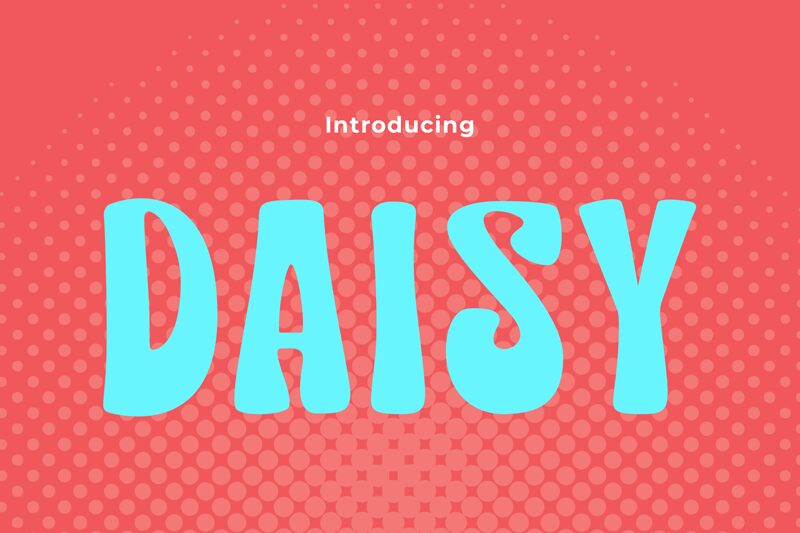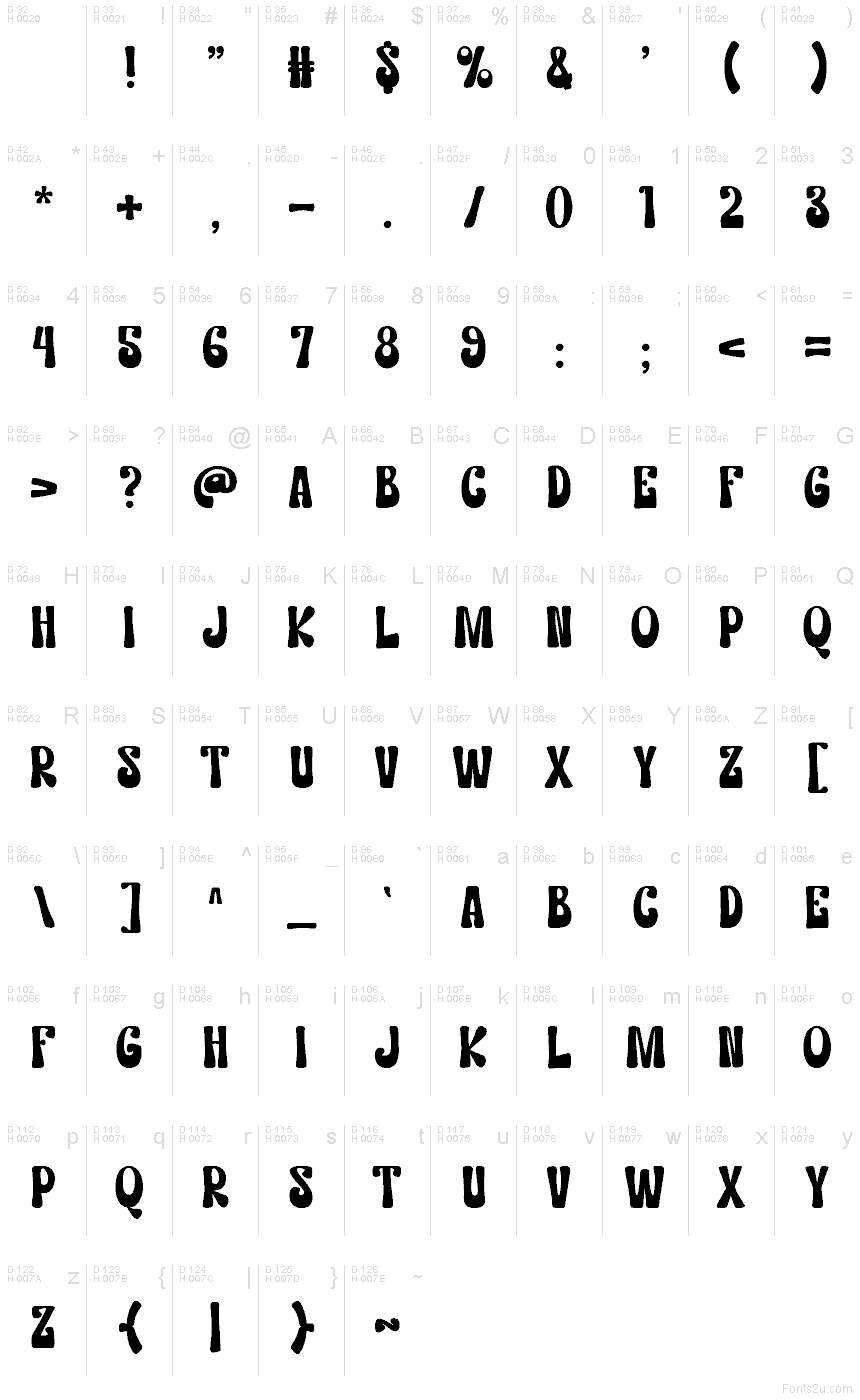
DAISY
Daisy font by Pinisiart is a free groovy display typeface that hits that sun‑soaked, late‑’60s vibe right on the nose. Thick, inky strokes swell and pinch with a wavy, hand-cut rhythm, giving words a pleasantly squishy bounce without losing legibility. It feels friendly and loud at the same time—like poster paint still drying.
Using Daisy, headlines jump off the page for festival posters, vintage‑inspired packaging, bold merch, sticker sheets, social graphics, and playful storefront signage. The generous weight and curvy silhouettes create an easy read at large sizes, while the soft corners keep it warm. For balance, pair this free font with a clean geometric sans in small text and let Daisy handle the big, happy moments.